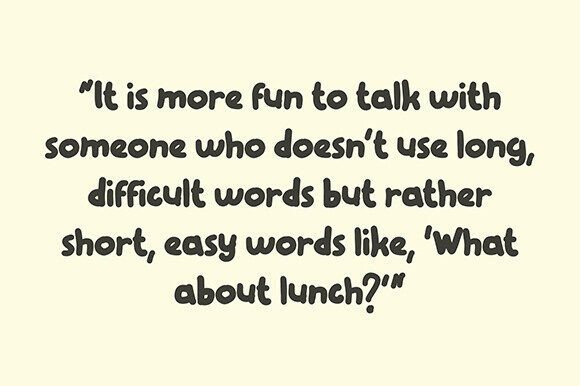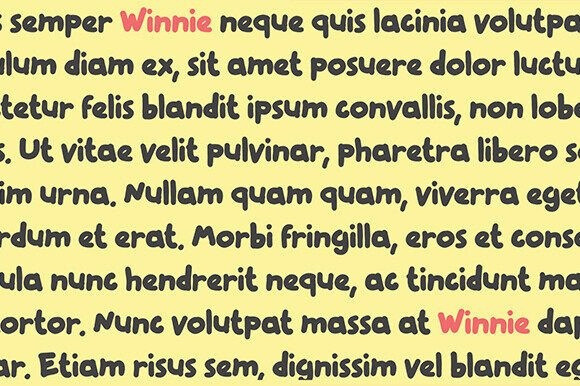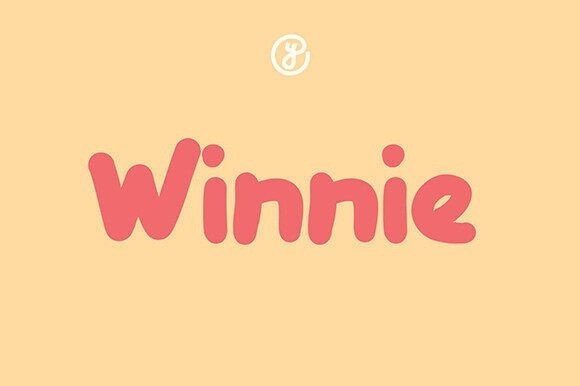
Winnie Font
Winnie Font – the font that artistically echoes the delightful enchantment of cherished childhood tales. Its design is lovingly reminiscent of familiar faces and treasured narratives steeped in imagination and wonder. Winnie effortlessly encapsulates an inviting and amiable aura, bearing the round, plush, and soft qualities akin to its inspiratory namesake. As your eyes dance over the cheerful curves of this pleasantly plump typeface, you can almost hear the dulcet notes of heart-warming nostalgia.
Ideal for those projects yearning for a gentle sprinkle of warmth, Winnie passionately revives past memories and fosters a vibrant connection with cherished yesteryears. Experience the joyous energy that Winnie effortlessly imbues, enlivening your projects and warming hearts along the way.